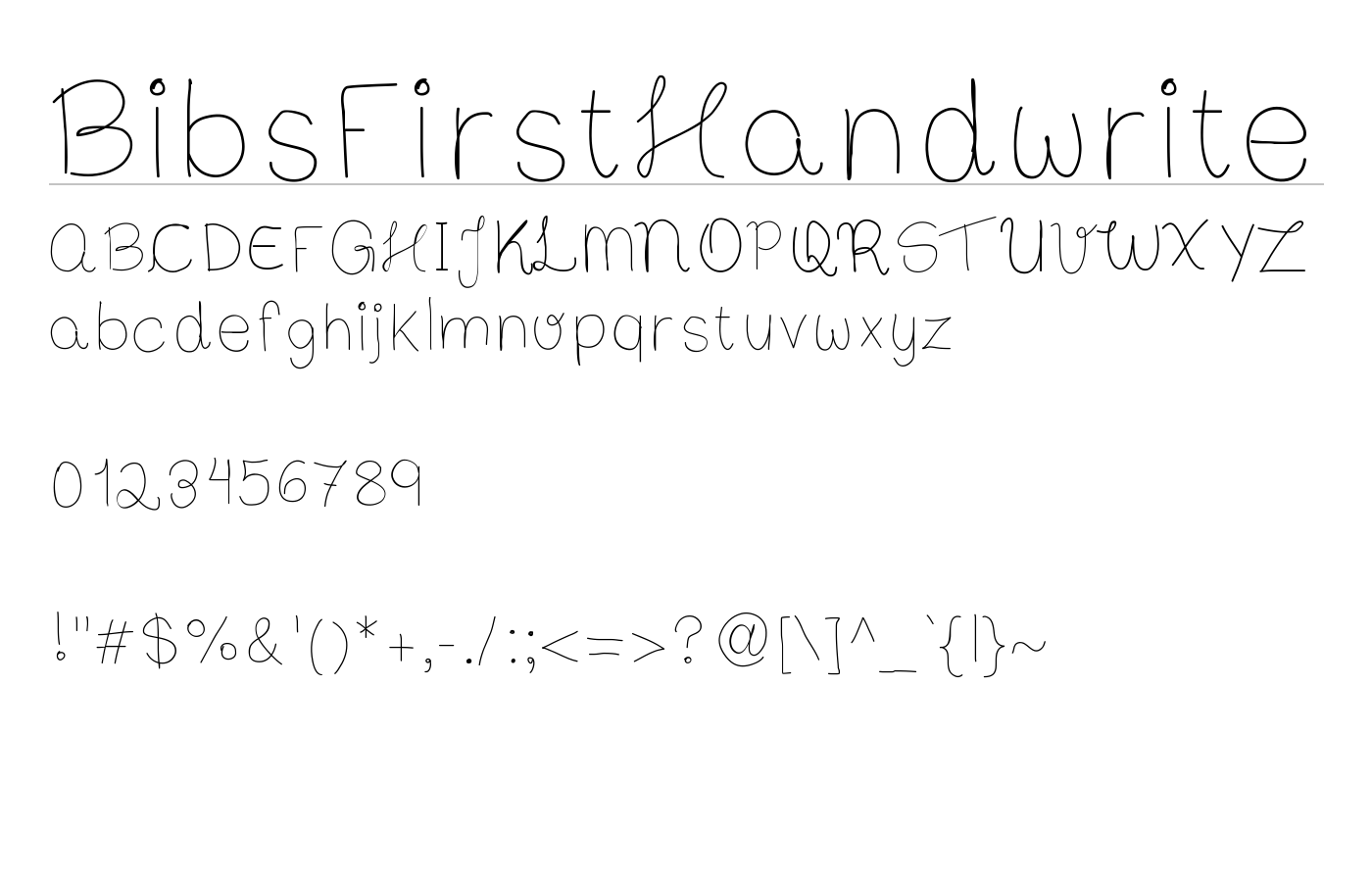
BibsFirstHandwrite is a delicate, thin handwritten font that captures a playful yet thoughtful vibe with its tall, narrow letterforms and whimsical curves. Its light weight and airy spacing give it a casual, personal touch, making it ideal for creative projects, children’s content, and informal branding that seeks warmth and approachability. This font works beautifully in headlines, invitations, or any design that benefits from a friendly and charming handwritten style.
BibsFirstHandwrite Font
About BibsFirstHandwrite Font